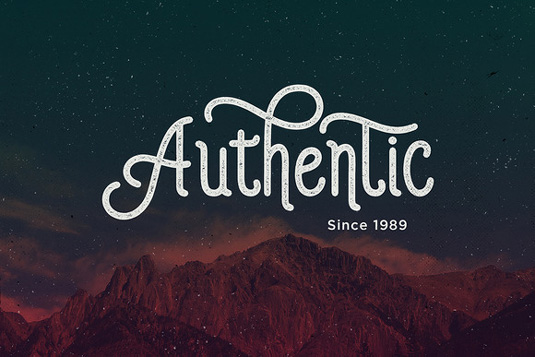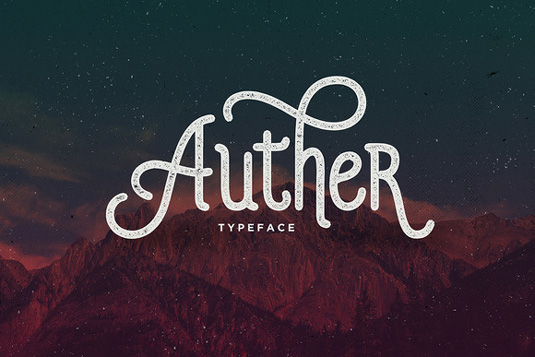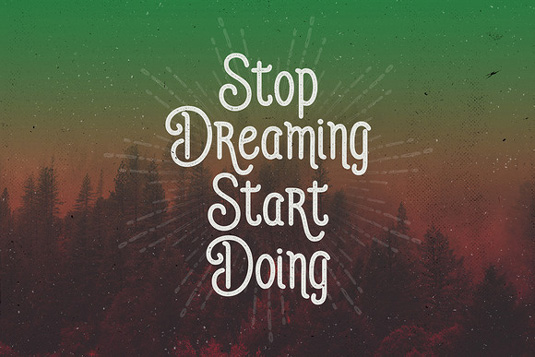
Font of the day: Auther
Every day we showcase the best fonts on the web. Today it's Auther from Seniors Studio.
Auther from Seniors Studio
Auther typeface is a modern design with a vintage feel. Created by the team at Seniors Studio, Auther is suited to various print and digital designs, including logos, stationery and posters.